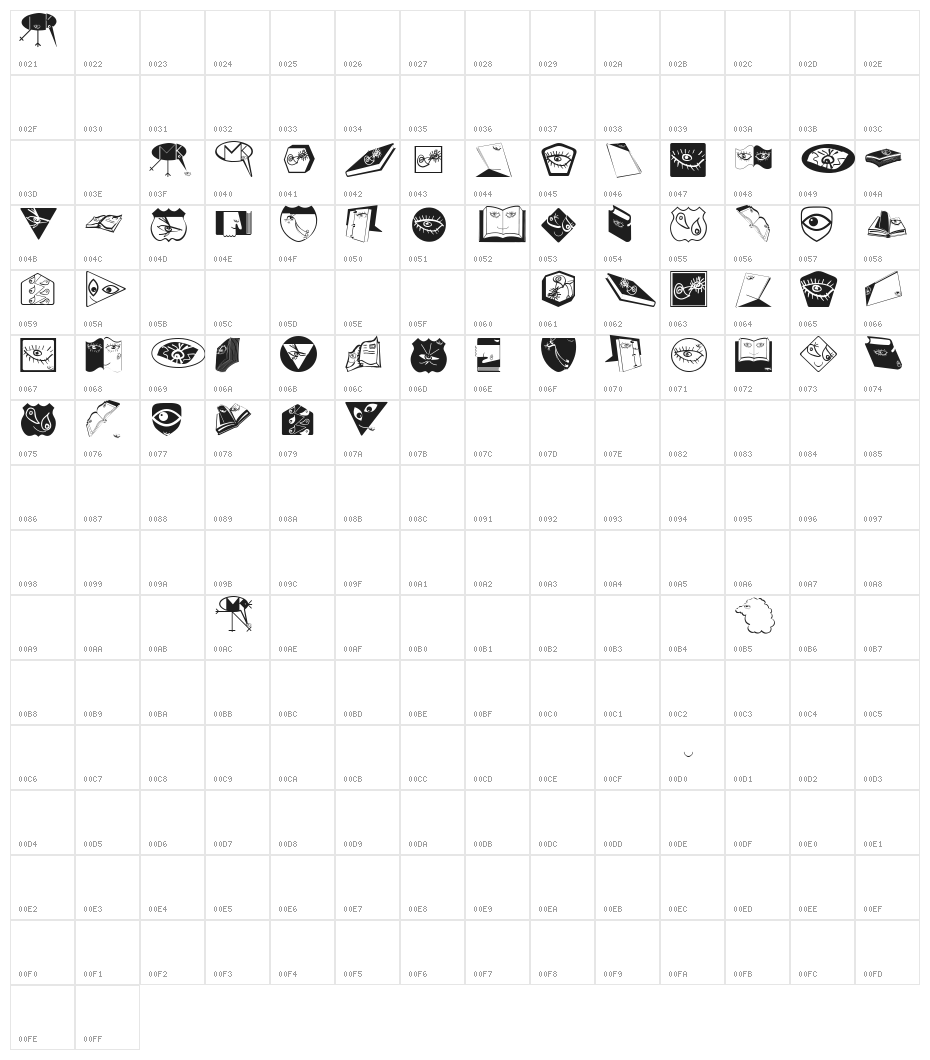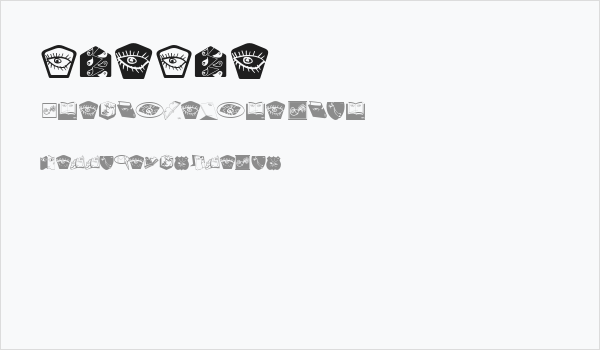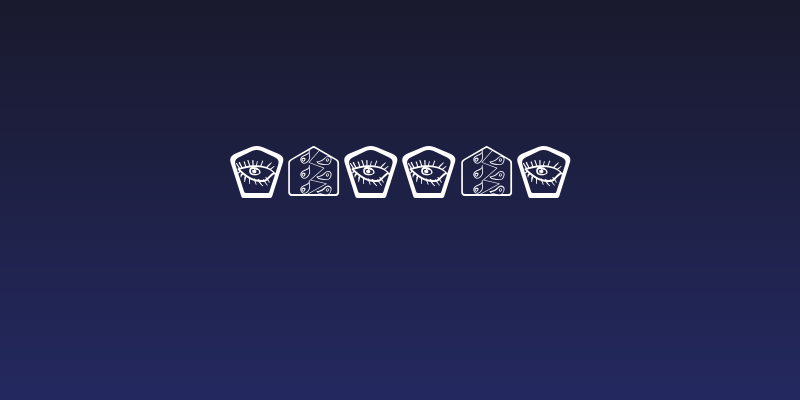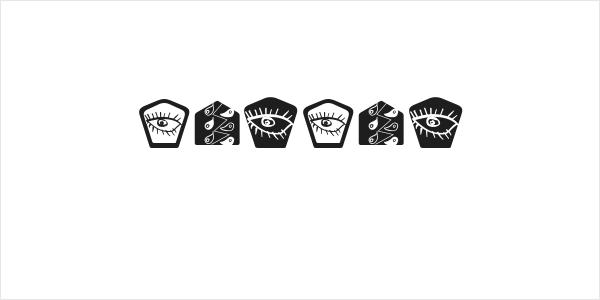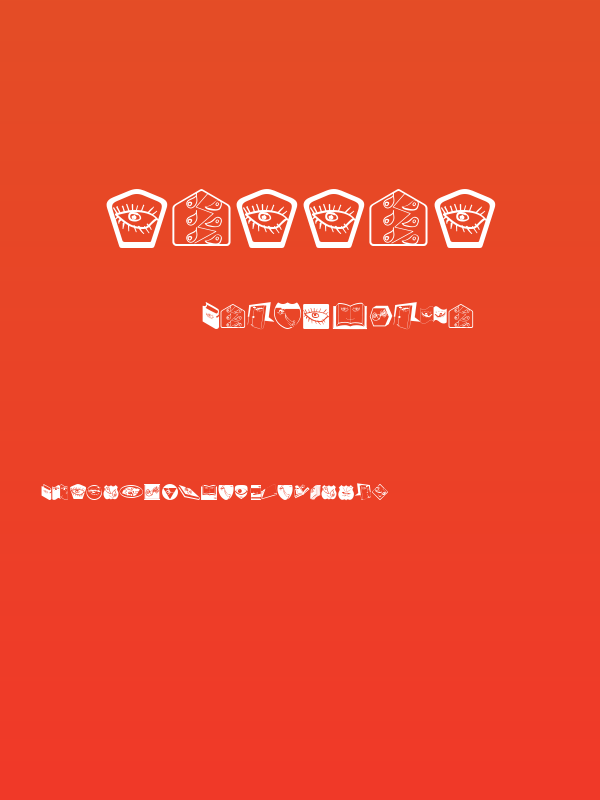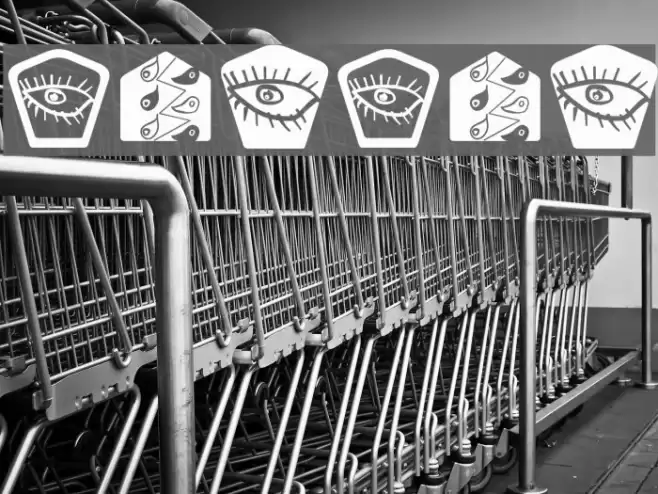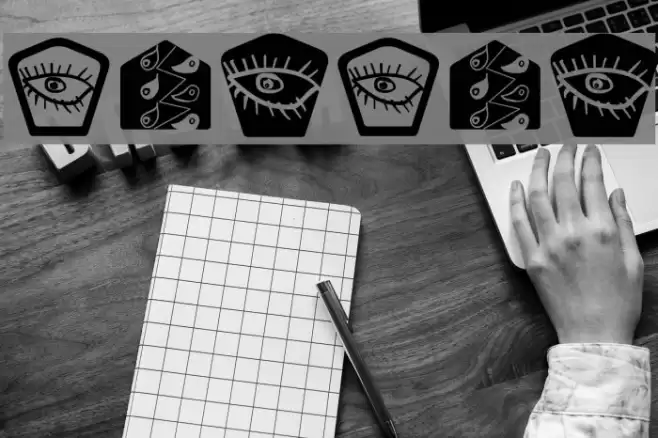
EyeEye Font
EyeEye Description
This is not a traditional font but rather a collection of artistic symbols and illustrations, each featuring an eye motif. The characters are highly decorative, with each letter or symbol enclosed in unique shapes such as shields, books, and geometric forms. The design is whimsical and imaginative, with a strong emphasis on visual storytelling through the eye imagery. This collection is more of an art piece than a functional typeface, intended to convey creativity and intrigue.
| Use Case | Logos, Artistic projects, Graphic design elements |
| Proposed Projects | Ideal for artistic projects, graphic design elements, or creating unique logos and branding materials that require a whimsical and eye-catching aesthetic. |